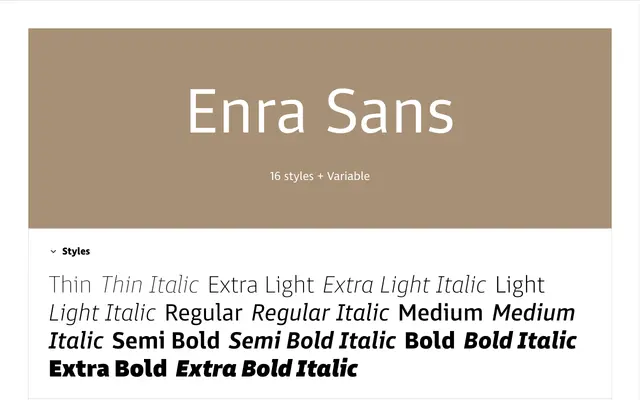
Enra Sans
A humanist sans conceived to balance technical precision with warmth, available in eight weights with italics and a variable font, covering Latin Extended including Vietnamese.
Originally sketched in the early 2010s and substantially redrawn before release, Enra Sans sits within a three-member system alongside Enra Slab and Enra Semi, all sharing a common skeleton with harmonised weights. Its large x-height, generous counters and open apertures keep text readable at small sizes, while the squarish structure holds well on screen. Selective serifs on capital I, J and lowercase i, j and l aid disambiguation, with stylistic sets allowing their removal for a more conventional appearance.
Described as a hybrid of technical and human qualities, with a large x-height, open apertures and narrow proportions characteristic of humanist sans design. The selective use of serifs on I, J, i, j and l for legibility reinforces its functional, reader-oriented character.